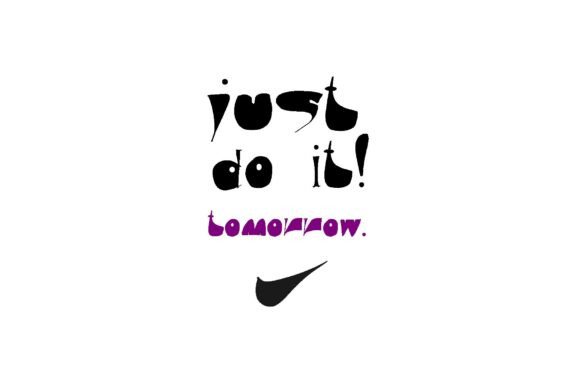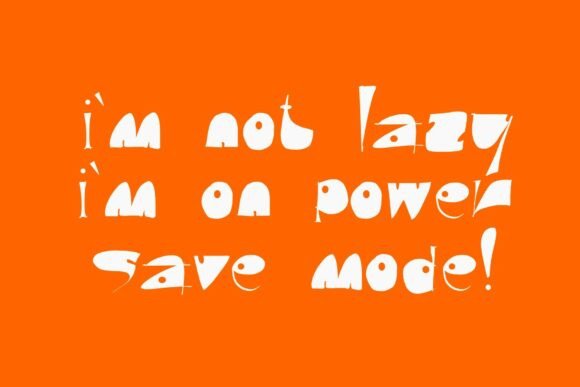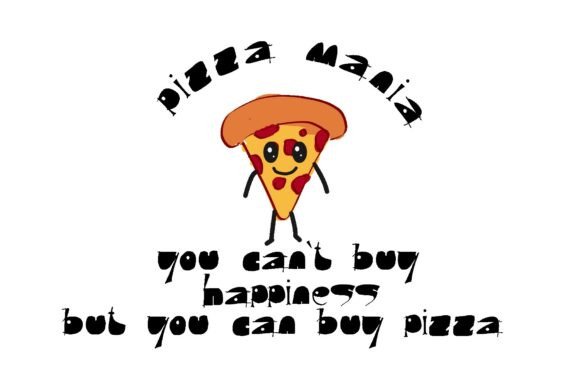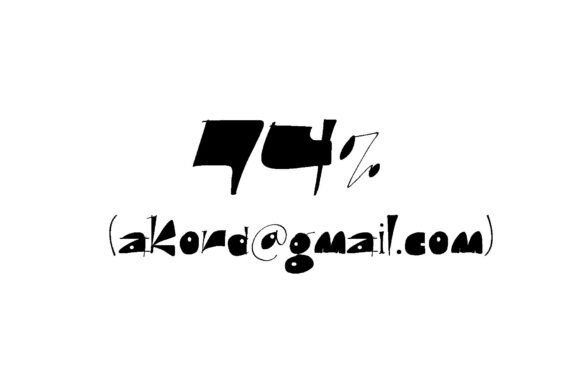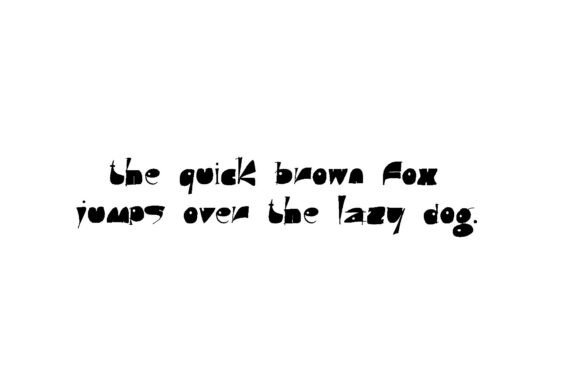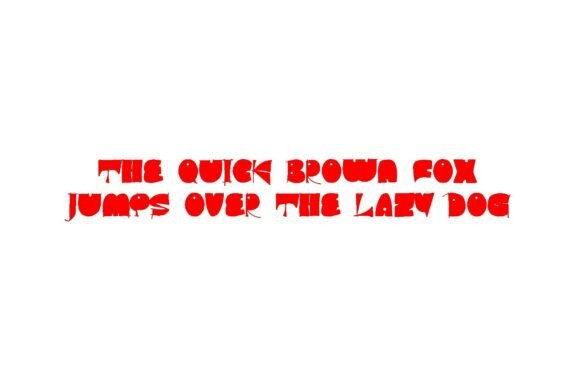
Introducing Groft Font: The Ultimate Display Typeface for Fun and Whimsy
Are you tired of using the same old boring fonts in your design projects? Look no further! We’re excited to introduce Groft Font, a delightful and entertaining display typeface that’s sure to bring a smile to your face. With its comically goofy aesthetics, this font is guaranteed to add a touch of fun and whimsy to your designs.
A Cheerful and Playful Design
Groft Font is a unique display typeface that’s designed to exude a cheerful, playful, and jocose air. Its bold and light-hearted statement is perfect for designers and crafters who want to add a dash of personality to their projects. Whether you’re working on a children’s book, a greeting card, or a website, this font is sure to make your design stand out from the crowd.
Unleash Your Creativity with Groft Font
With Groft Font, you can indulge in the spirit of fun and creativity. This font is perfect for projects that require a playful and imaginative approach. Imagine using it for a kids’ party invitation, a humorous blog post, or a social media campaign that’s designed to bring a smile to people’s faces. The possibilities are endless, and we’re excited to see what you’ll create with this unique display typeface.
Key Features of Groft Font
- Comically Goofy Aesthetics: Groft Font has a unique and humorous design that’s sure to grab attention.
- Cheerful and Playful: This font exudes a light-hearted and jocose air that’s perfect for adding a touch of fun to your designs.
- Bold and Light-Hearted Statement: Groft Font is designed to make a statement and add personality to your projects.
- Perfect for Creative Projects: This font is ideal for designers and crafters who want to add a dash of whimsy and creativity to their work.
How to Use Groft Font in Your Designs
- Use it as a Headline Font: Groft Font is perfect for headlines and titles. Use it to grab attention and add a touch of personality to your designs.
- Pair it with Other Fonts: Experiment with pairing Groft Font with other fonts to create a unique and interesting contrast.
- Experiment with Colors: Don’t be afraid to try out different colors and textures with Groft Font. This font looks great in bright, bold colors.
In conclusion, Groft Font is a unique and entertaining display typeface that’s sure to bring a touch of fun and whimsy to your designs. With its comically goofy aesthetics and cheerful, playful design, this font is perfect for designers and crafters who want to add a dash of personality to their projects. So why not give it a try? Download Groft Font today and unleash your creativity!